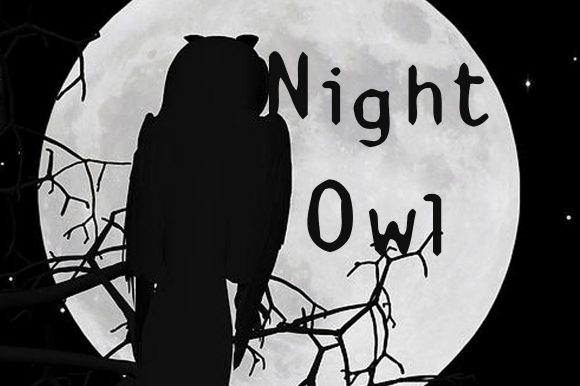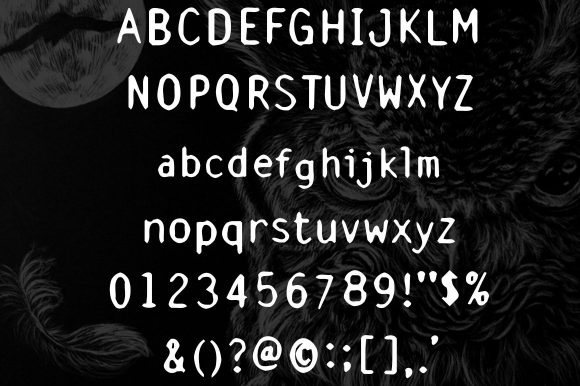
Unleash the Power of Creativity with the Guthrie Font
Have you ever stared at a blank page, struggling to find the perfect font to bring your design to life? We’ve all been there. But what if I told you that there’s a font that can instantly elevate your creation and make it stand out from the crowd? Enter the Guthrie Font, a cool and organic display font that’s perfect for designers looking to add a touch of sophistication to their work.
With its simple yet striking design, the Guthrie Font is a game-changer for designers who want to make a lasting impression. Whether you’re creating a logo, a poster, or a brochure, this font will add a level of visual appeal that’s hard to resist. And the best part? It’s easy to use and requires minimal setup, making it a valuable addition to any designer’s toolkit.
- Unique Characteristics: Guthrie Font features a distinctive, elegant design with a mix of modern and classic elements, making it suitable for a wide range of applications, from advertising to editorial content.
Guthrie Font Review
When I first started working with the Guthrie font, I was immediately drawn to its elegant and refined aesthetic ✨. The font’s sleek lines and subtle curves make it perfect for use in high-end branding and design projects. It’s also incredibly versatile, working well for both print and digital applications.
Here are some of the key strengths I’ve observed:
- Excellent legibility, even at small font sizes ✨
- Highly customizable, with a wide range of style options available ✨
- Works well in both serif and sans-serif contexts ✨
However, I did encounter a few limitations that might be worth noting:
- Can be a bit difficult to read at very large font sizes ⚠️
- Lacks a true italic version, which can make it tricky to use in certain contexts ⚠️
- Not as widely supported as some other popular fonts ⚠️
Overall, I’m really impressed with the Guthrie font. While it may not be perfect, its strengths far outweigh its weaknesses, and I think it’s a great choice for any designer looking to add a touch of sophistication to their work.
Tips for Getting the Most Out of Guthrie Font
To get the most out of Guthrie Font, try combining it with other fonts for a unique look.
Use it for titles, headings, or emphasis to add visual interest to your designs.
Guthrie Font is ideal for:
– Creating rustic or vintage-inspired designs
– Adding a touch of elegance to wedding invitations or stationery
– Creating a unique and memorable brand identity
Alternatives to Guthrie Font
Playfair Display is a luxurious and elegant serif font perfect for adding a touch of sophistication to your designs. It features intricate details and a classic feel, making it ideal for high-end branding, luxury products, and formal invitations. Compared to Guthrie Font, Playfair Display has a more refined and traditional look, while Guthrie Font has a more rustic and vintage feel.
Lato is a modern sans-serif font that is clean, simple, and highly legible. It’s perfect for digital products, websites, and mobile apps where readability is crucial. Compared to Guthrie Font, Lato is more minimalist and lacks the vintage charm of Guthrie, but it’s a great choice for modern and sleek designs.